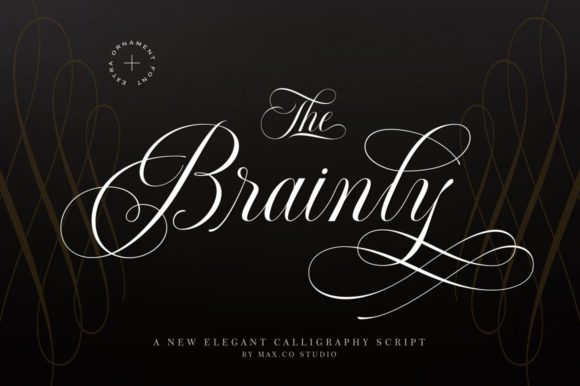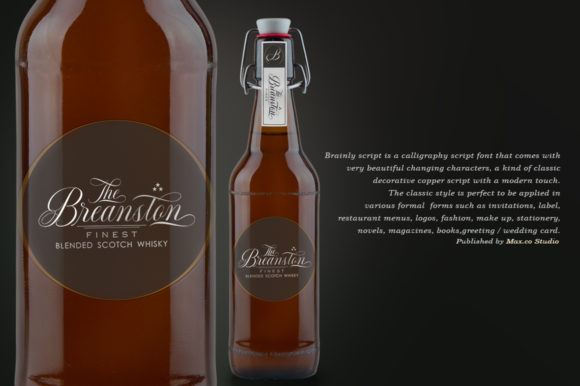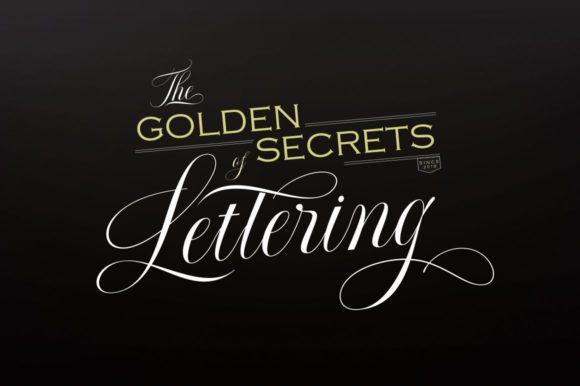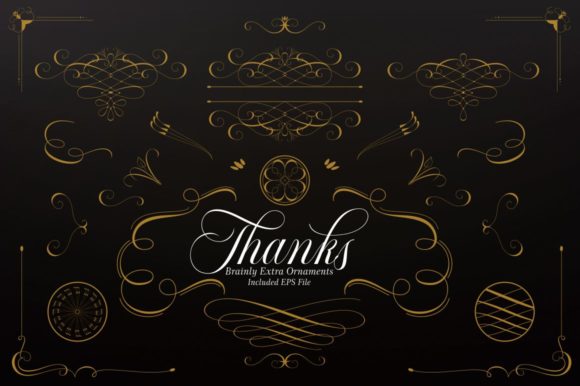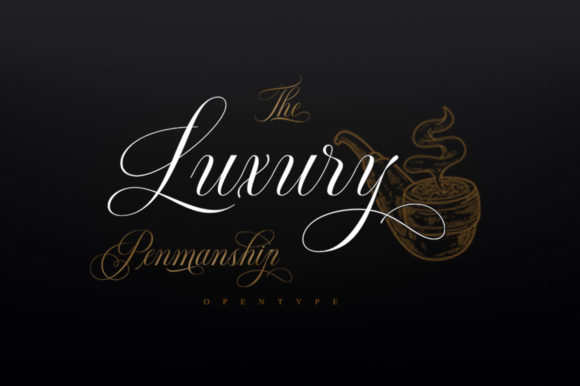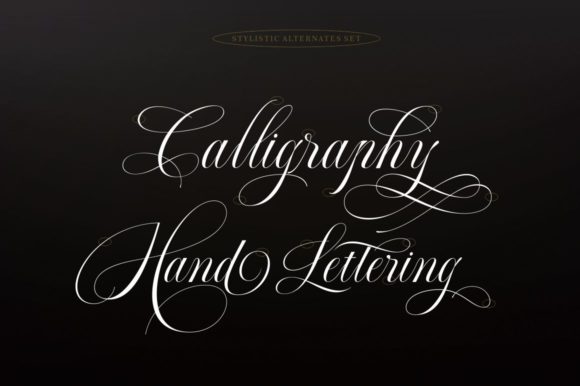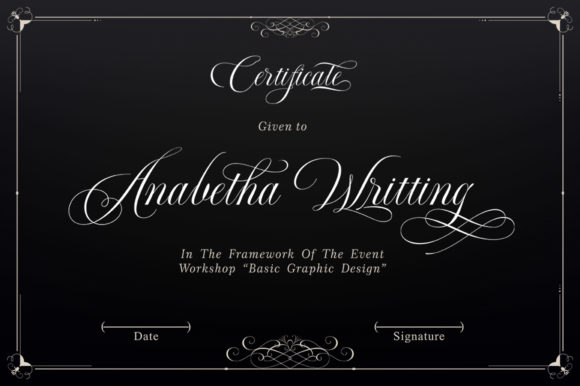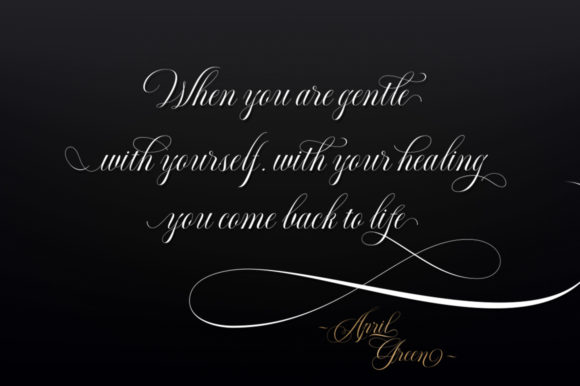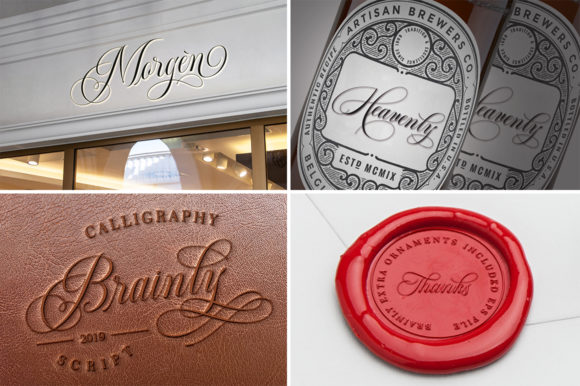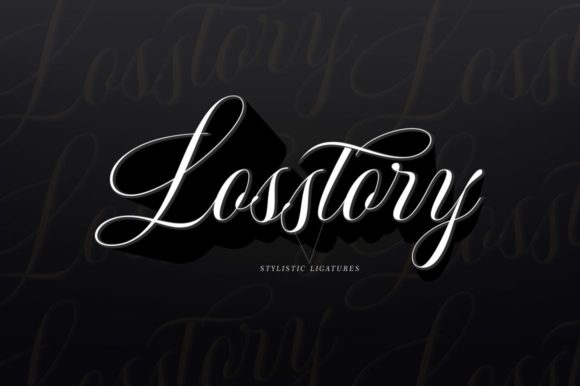
Brainly Font
About Brainly Font
Brainly is a luxurious and classy script with incredible swashes. Use it to create sophisticated crafts. Ornaments are included as a TTF file in the download.